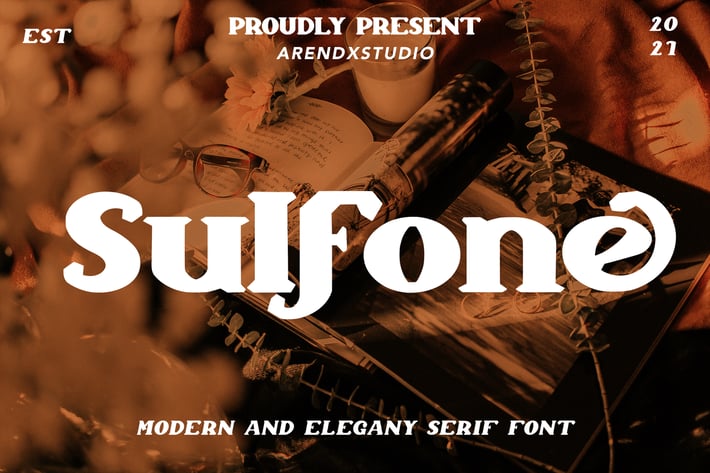
Sulfone - Modern And Elegant Serif Font
Sulfone - Modern And Elegant Serif Font with sharp and beautiful letters that create fonts that are modern, trendy and elegant. Came with opentype features such stylistic alternates, stylistic sets & ligatures good for logotype, poster, badge, book cover, tshirt design, packaging and any more.